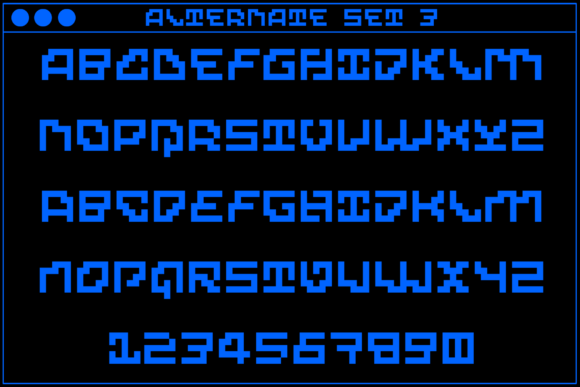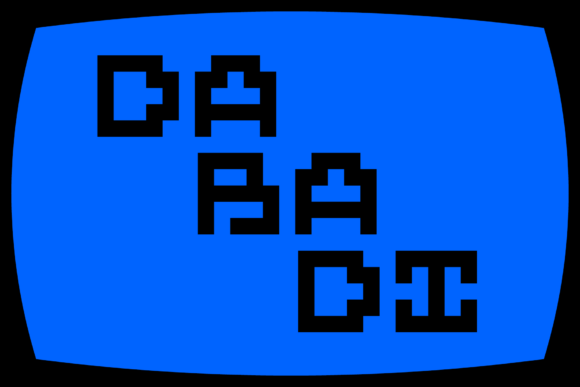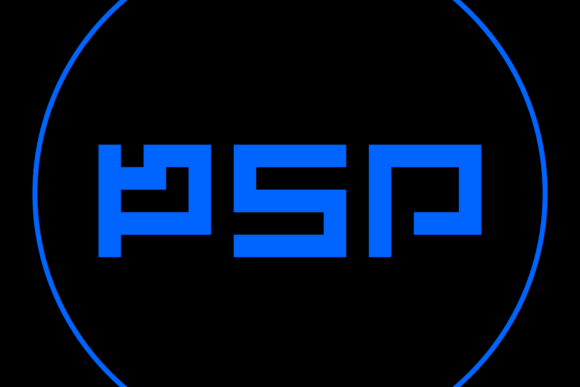
Introduction to MultiType Maze Cryptic Font
Have you ever been stuck on a design project, searching for that perfect font to give it a unique twist? I’m sure you have. It’s that moment when you’re scrolling through font libraries, trying to find something that truly stands out. Well, I’m here to tell you that you’ve just found it – the MultiType Maze Cryptic Font.
This cool, uniquely shaped, pixelated display font is a game-changer for designers. With its distorted and trendy touch, it’s the perfect addition to any creative project. Whether you’re working on a high-quality design or a simple graphic, MultiType Maze Cryptic Font is sure to make it stand out. And the best part? It’s available for free download, making it a valuable design resource for anyone looking to elevate their work.
Key Features of MultiType Maze Cryptic Font
- Unique blend of geometric and maze-like patterns, perfect for creative projects and design resources.
- High-quality design with transparent background, ideal for use on images with varied backgrounds.
- MultiType Maze Cryptic Font is designed to be highly versatile, suitable for a wide range of applications, from logos to typography.
- Supports various languages and characters, making it an excellent choice for international design projects.
- Perfect for designers looking for a unique and creative design resource to elevate their projects.
Honest Review: MultiType Maze Cryptic Font
I recently had the chance to work with the MultiType Maze Cryptic Font, and I must say it’s been a wild ride. This font is perfect for any creative project that requires a touch of mystery and intrigue. With its unique blend of modern and vintage styles, it’s sure to add a layer of depth to your designs.
- ✨ High-quality design: The font is meticulously crafted with attention to detail, making it a great resource for designers.
- ✨ Transparent background: This makes it easy to integrate into any design project, without the hassle of dealing with awkward backgrounds.
- ⚠️ Limited font sizes: While the font is versatile, it does have some limitations when it comes to font sizes. Be mindful of this when using it in larger projects.
- ⚠️ Not ideal for body text: While the font is perfect for headings and titles, it may not be the best choice for body text due to its unique style.
Overall, I’m thoroughly impressed with the MultiType Maze Cryptic Font. Its unique style and high-quality design make it a valuable addition to any design resource. Just be aware of its limitations and use it judiciously in your creative projects.
The MultiType Maze Cryptic Font is a unique, high-quality design resource perfect for creative projects that require a touch of mystique. With its free download and transparent background, you can easily integrate it into your designs.
To get the most out of the MultiType Maze Cryptic Font, experiment with different font sizes, colors, and layer styles. You can also combine it with other design elements to create a unique visual effect.
The MultiType Maze Cryptic Font is perfect for creative projects such as:
Graphic novels and comic books
Video game design
Horror movie posters
Steampunk-inspired designs